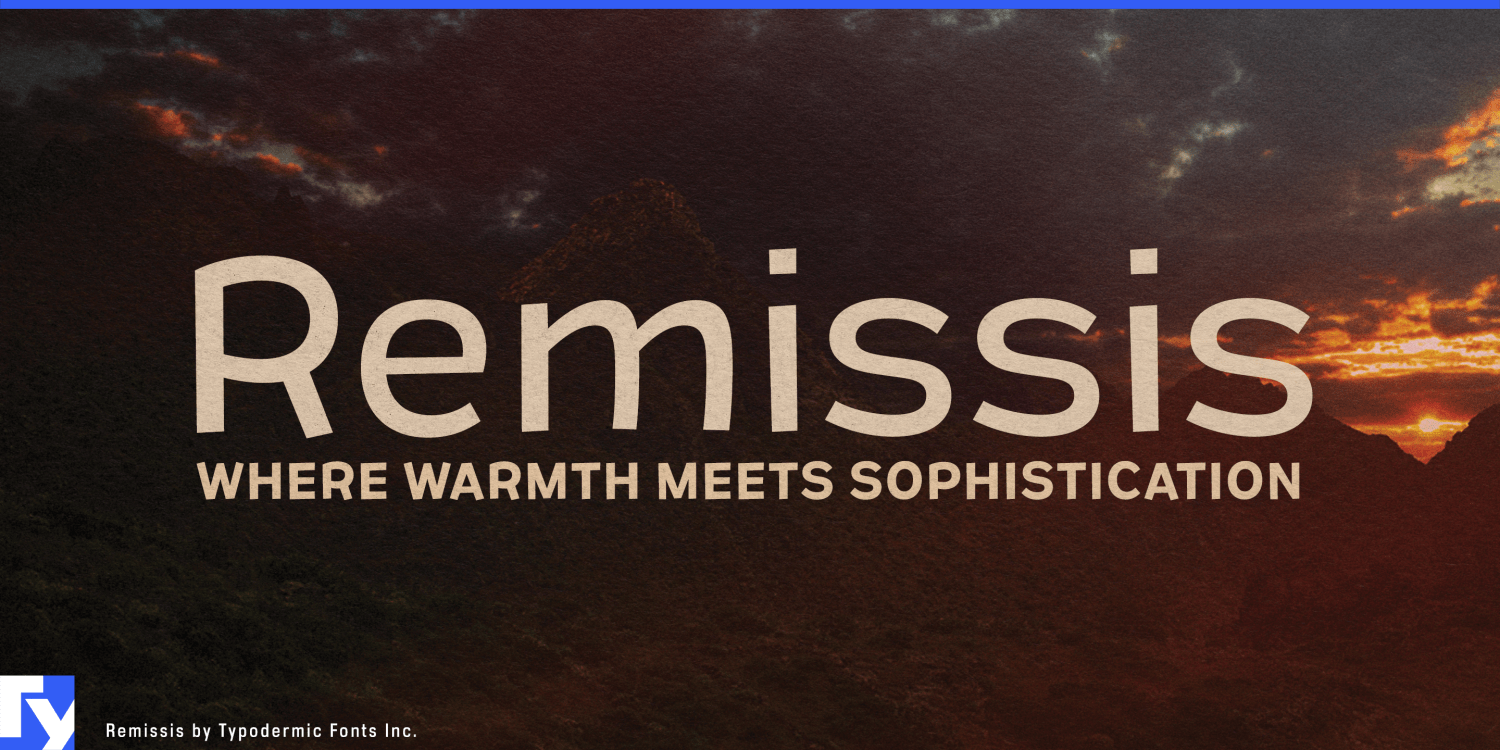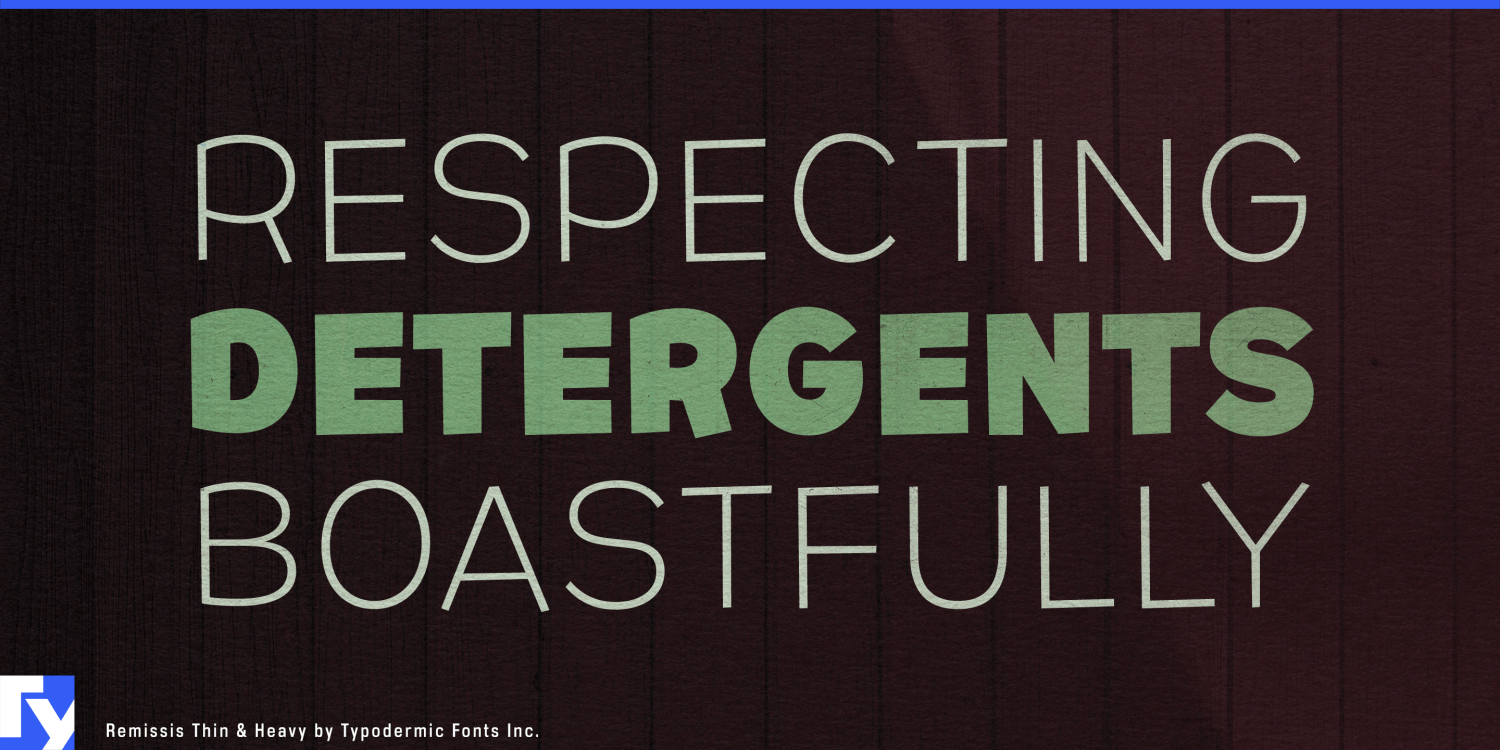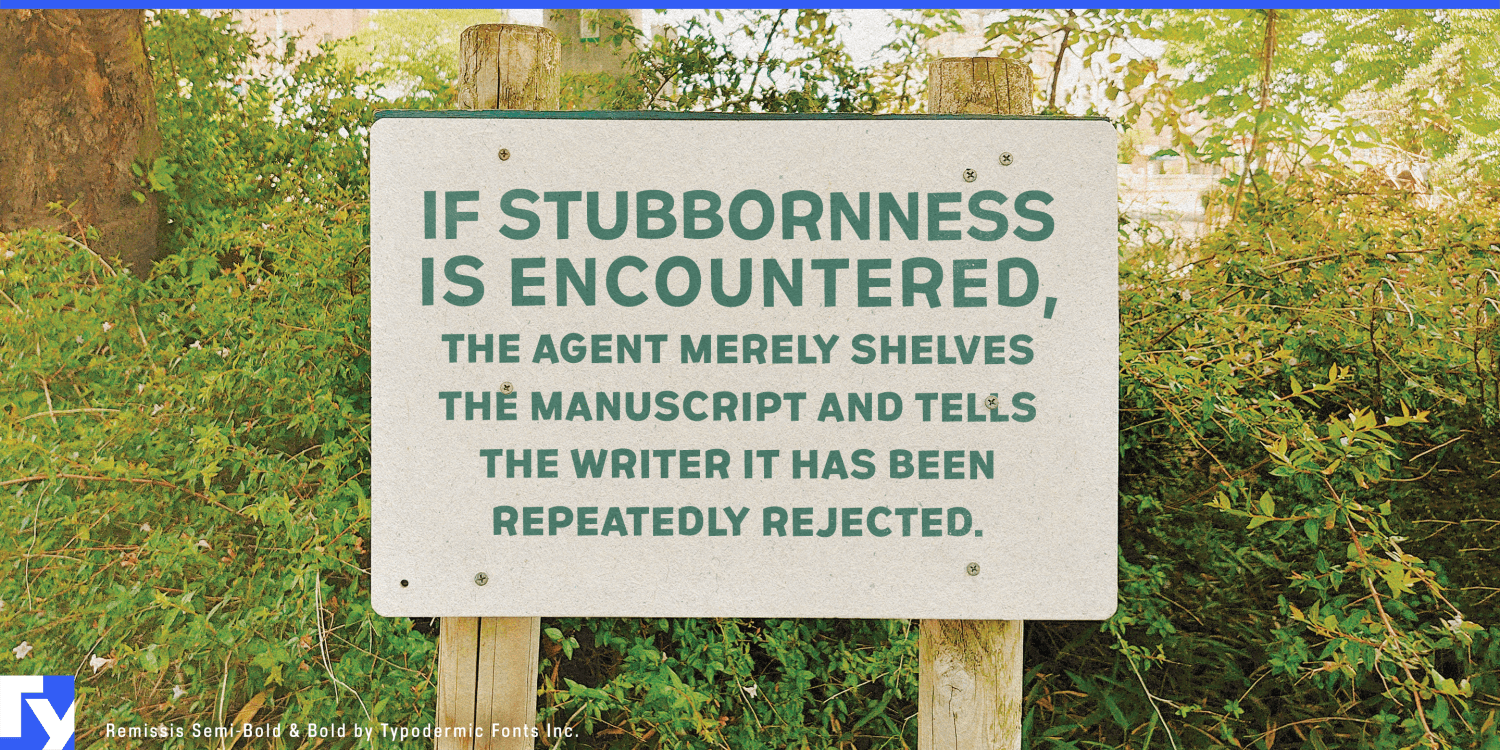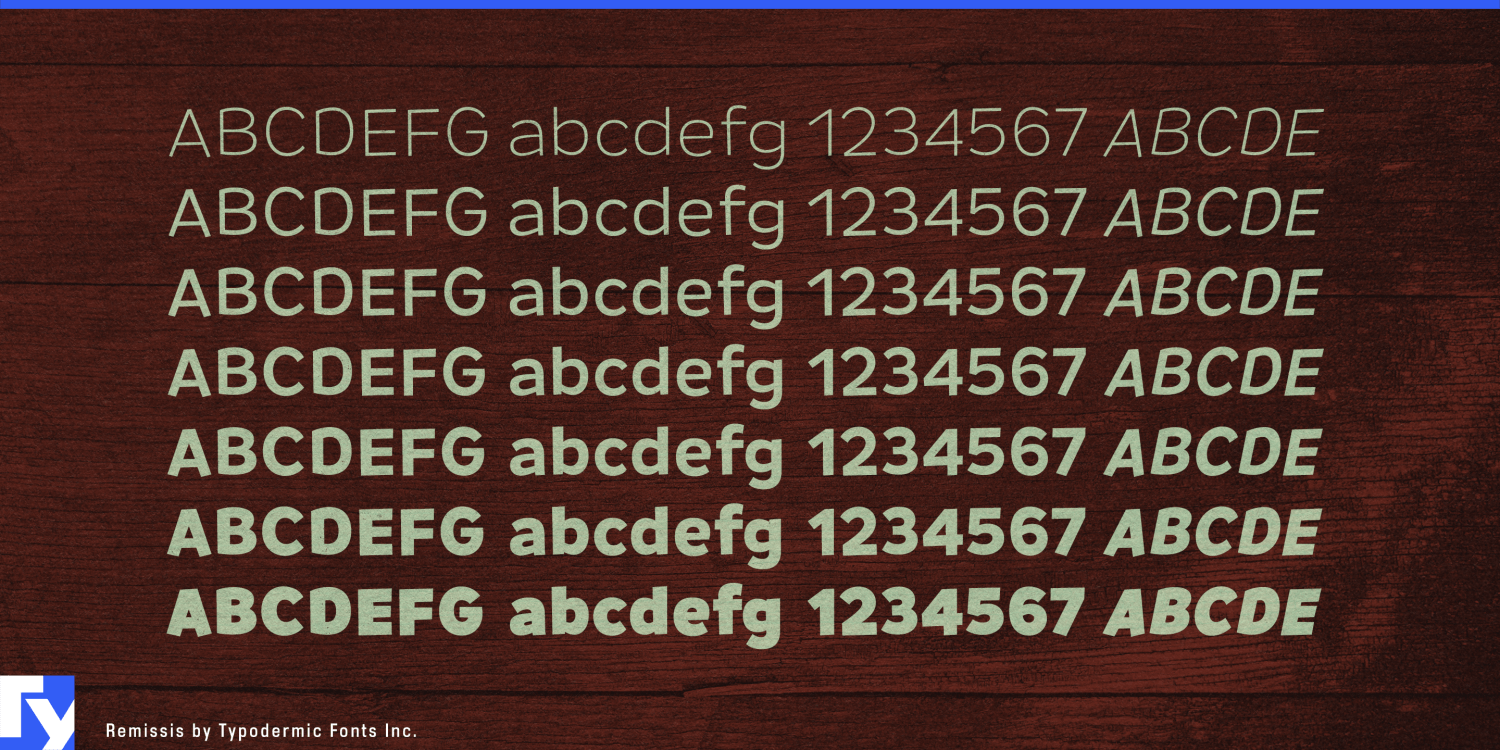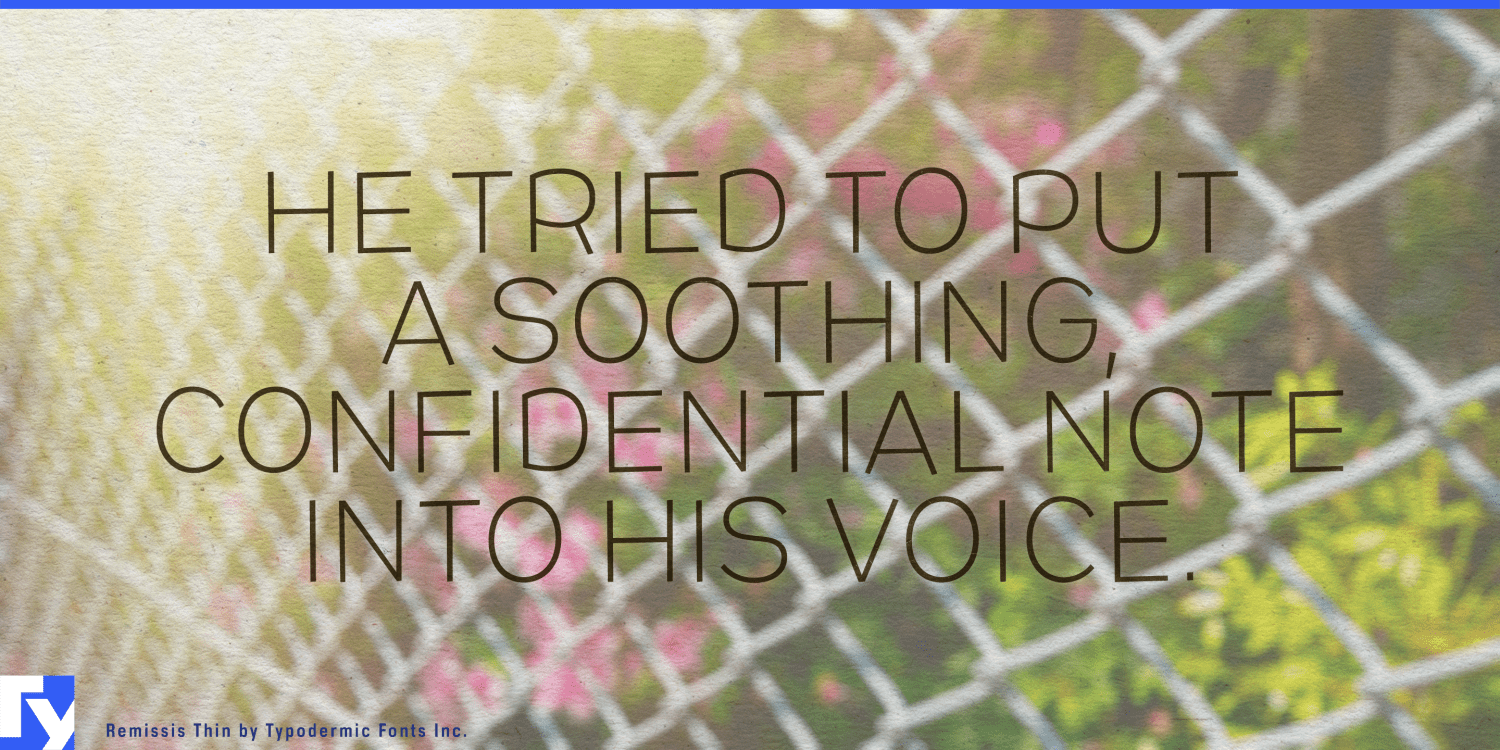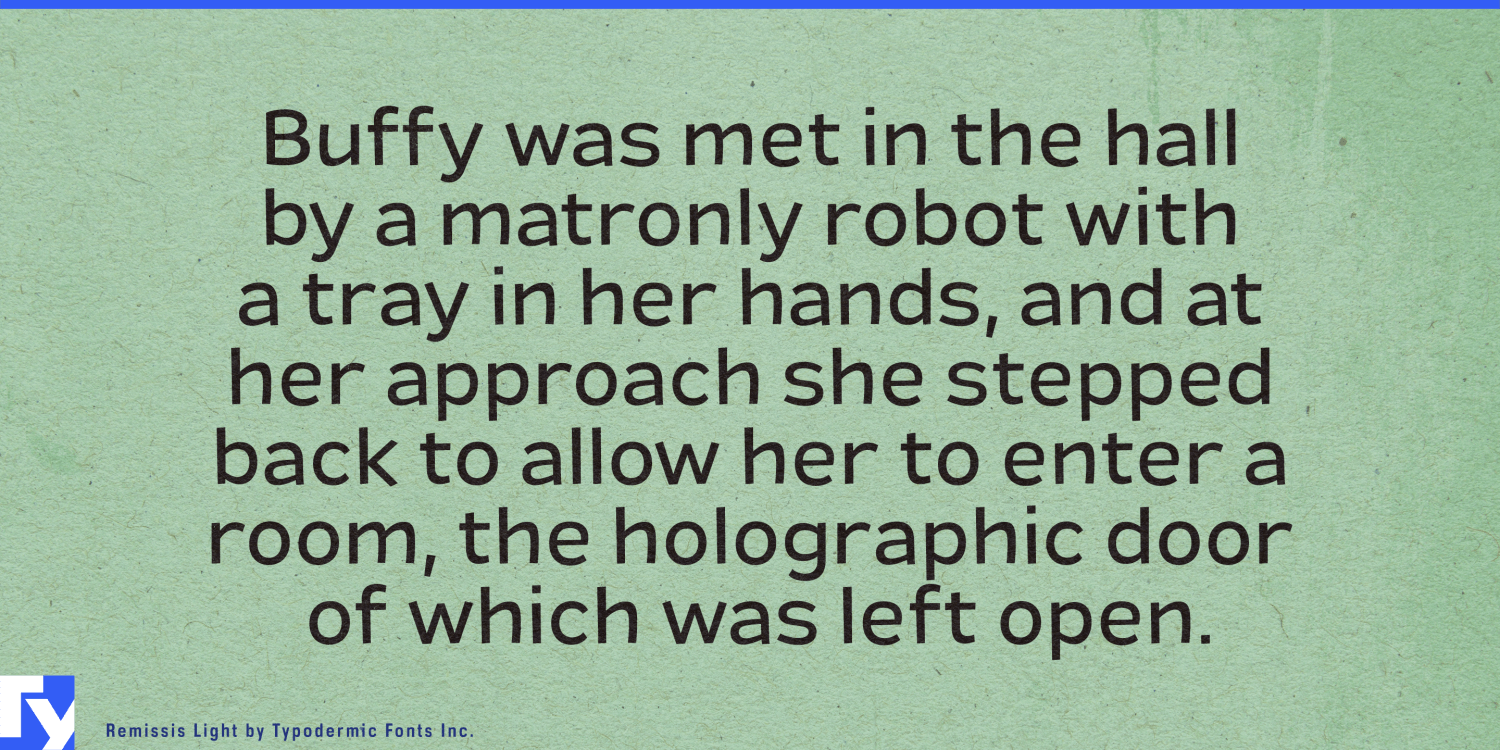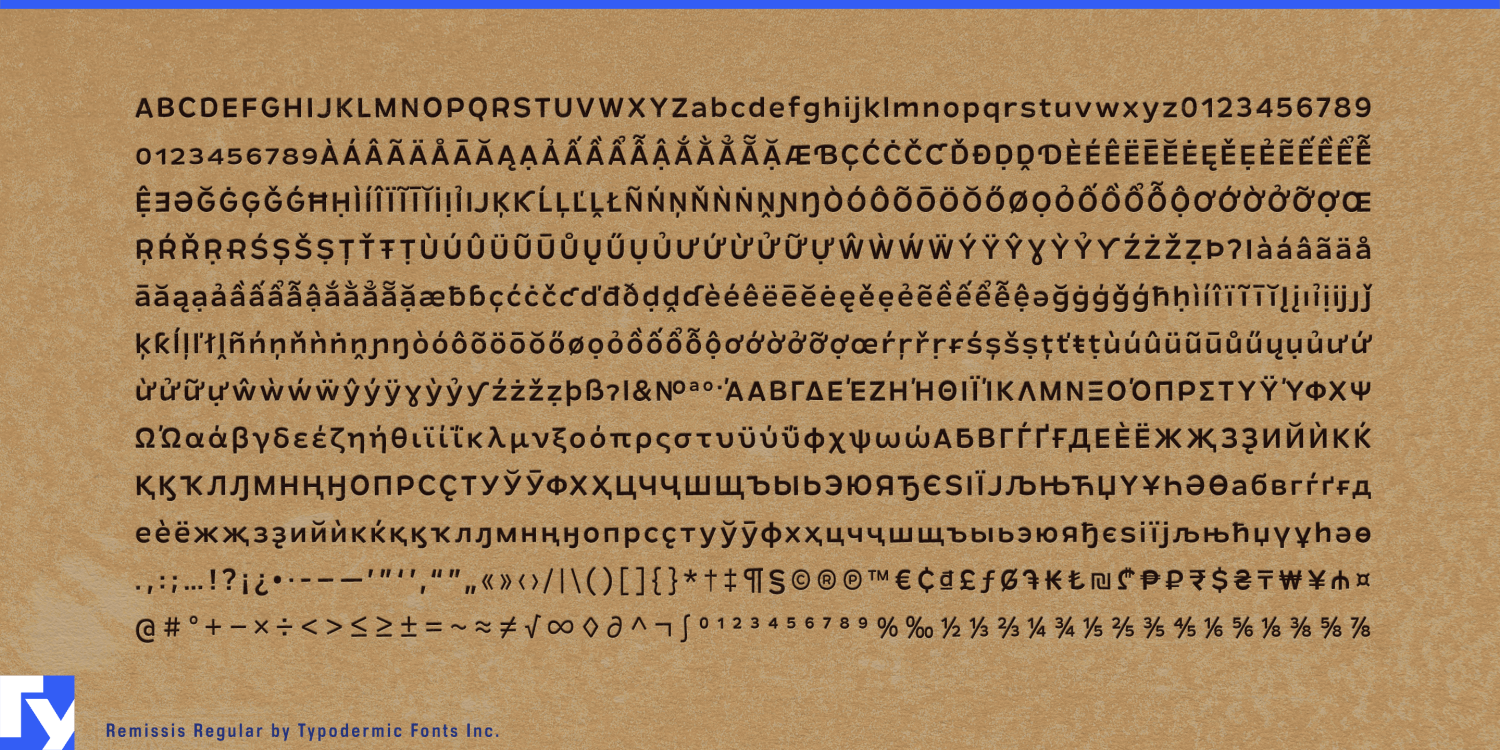
Remissis
Its structure is orderly, but selected horizontal strokes sit slightly off the expected grid. Letters such as E, F, L, T and Z introduce small deviations that soften the geometry without making the design look handmade. The result is a rational sans-serif with just enough irregularity to avoid machine-perfect sterility.
That makes Remissis especially useful for architectural materials whose character comes from controlled variation. Recycled-felt acoustic panels, ceiling baffles, wood-wool systems and decorative sound-absorbing screens are manufactured to technical standards while remaining visibly fibrous, mottled or textured. Remissis can give collection names, color families, sample binders, catalogue headings and showroom graphics the same balance between system and variation.
Recycled and composite surfaces present a similar design problem. Terrazzo with visible aggregate, recycled-glass slabs, paper composites, reclaimed-plastic sheets and solid-surface materials with reused inclusions are industrial products whose irregularity is part of their appeal. A rigid geometric sans can make them feel more synthetic than they are; overtly handmade lettering can undermine their technical credibility. Remissis occupies the useful space between those extremes.
Engineered timber, cork products, linoleum, recycled-content flooring and modular interior systems offer related applications. These materials are sold as coordinated, repeatable systems while retaining visible grain, fibers, flecks or other variation. Remissis can handle series names, finish names, swatch cards, architect-facing catalogues, specification-folder covers, showroom headings and trade-show graphics while a more neutral companion takes care of dense technical information.
The same logic extends to emerging bio-based materials such as mycelium boards, agricultural-fiber panels and cellulose composites. These products need to communicate research, manufacturing and measurable performance without looking detached from the substance they are made from.
Remissis does not imitate grain, fibers or aggregate. Its irregularity is quieter than that; the geometry is simply allowed to remain a little less than perfect.